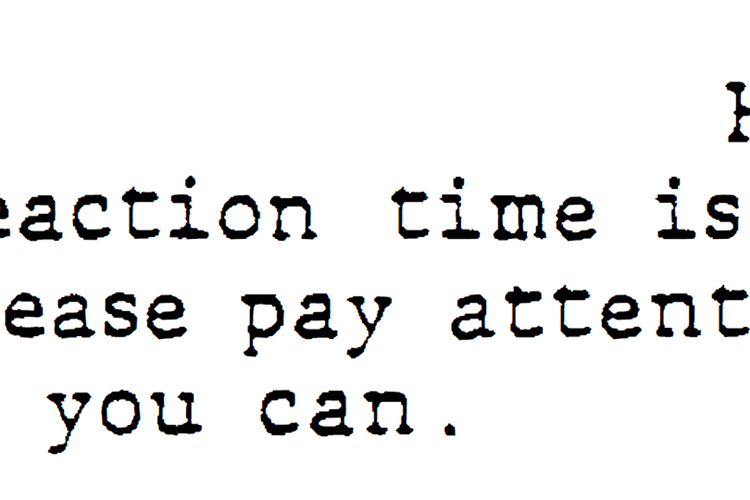
Blade Runner Screen Play Font
This is the original 1982 Blade Runner screen play typeface, produced by a now defunct, obsolete (and unknown) electronic or non-electronic typewriter circa 1980s, made by Gary Stephens
The action of this defunct typewriter, --- which could be by a burn mechanism, is faded, and adds to the overall Sci-Fi feel.